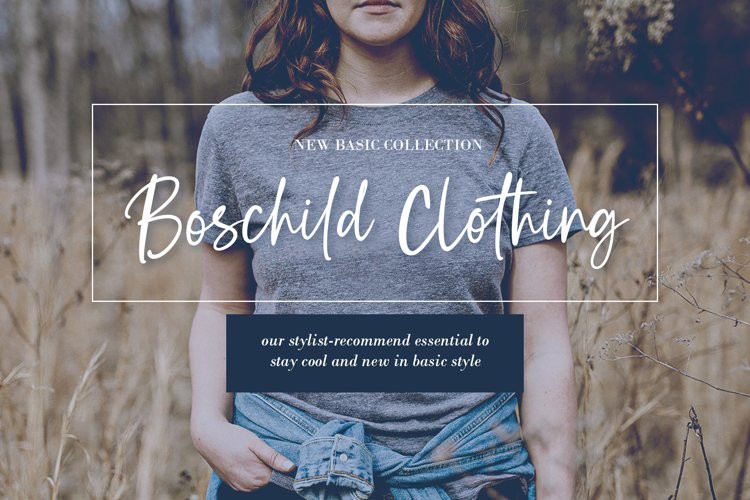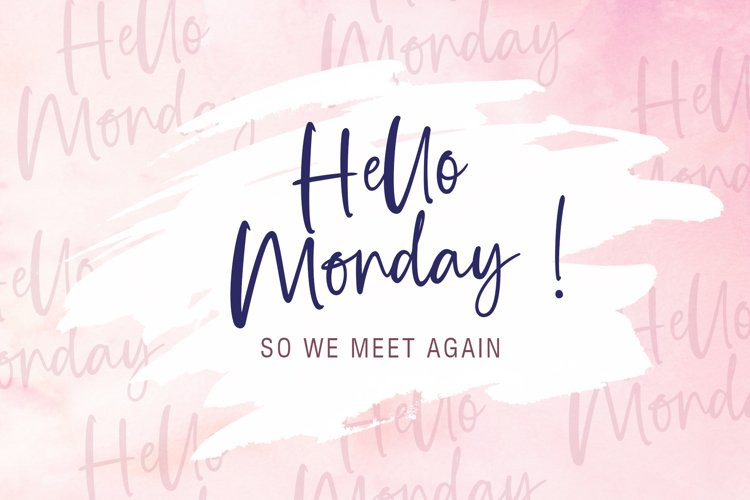
THALISAR Font
Thalisar is a quickly handwritten font. Written with a brush pen and tidied up for smooth and balanced results. Suitable for social media, instagram, logos, websites, blogs, home decor, wedding decor, invitations, branding, business cards, and many more. Complete with 56 ligature glyphs.